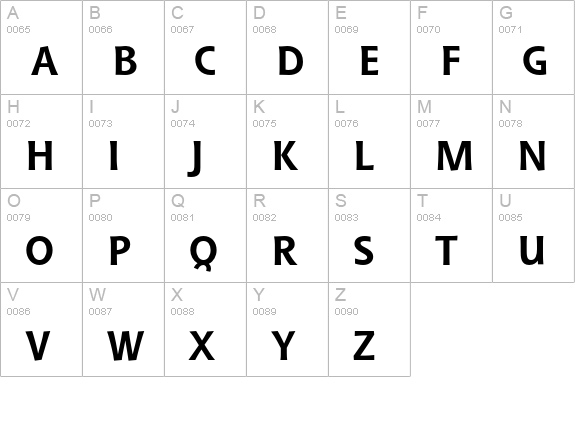
Shannon Std Bold is a strong, high-contrast variant in the Shannon typeface family \xE2\x80\x94 well suited to headlines, attention-grabbing titles, and strong calls-to-action.
Introducing Shannon Std Bold, a stunning and impactful font that exudes confidence and style. With its bold and powerful design, Shannon Std Bold captures attention and makes a bold statement in any project or design. The strong and clean lines of Shannon Std Bold create a sense of professionalism and sophistication, making it the perfect choice for logos, headlines, and signage. Its versatility allows it to be seamlessly integrated into a wide range of design styles and genres, from modern and sleek to bold and expressive. But what sets Shannon Std Bold apart is not just its stunning aesthetics. It is also freely available to download at FontsMarket.com, giving designers and creatives the opportunity to utilize this incredible font without any limitations or cost. This accessibility allows for endless possibilities and endless creativity. Whether you're working on a brand identity, a poster, a website, or any other design project, Shannon Std Bold will elevate your work to new heights. Its bold presence will instantly capture attention and leave a lasting impression on your audience. So why wait? Download Shannon Std Bold today from FontsMarket.com and unlock the power of this incredible font for free. Embrace its boldness, make a statement, and create designs that truly stand out. With Shannon Std Bold, the possibilities are limitless.